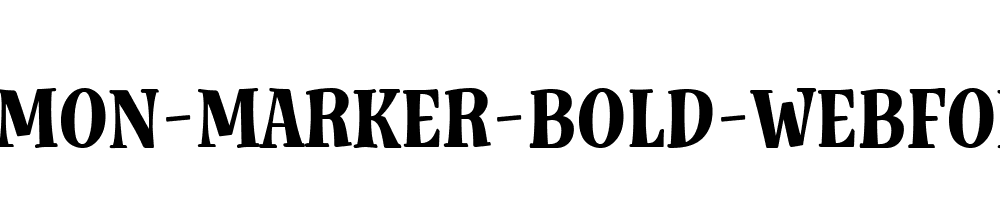
limon-marker-bold-WebFont
About limon-marker-bold-WebFont
Font Weight Name: Limon Marker Bold WebFont, Font Family: Limon Marker, designed by unknown. This font is part of the marker family, licensed with Adobe Fonts, and manufactured by an independent type foundry. The current version is not specified.
The Limon Marker Bold WebFont has a unique and expressive design that stands out for its bold and rugged appearance. The font features thick stems and sharp serifs, giving it a strong and serious look. The aperture of the letters is wide, with open counters adding to its friendly and familiar feel.
The ascenders and descenders of the font are quite pronounced, adding elegance to the overall design. The bowls are round and full, while the brackets and links provide a classic touch. The font also features subtle spurs and finials that add to its organic and progressive style.
The Limon Marker Bold WebFont is a warm and welcoming typeface that balances its ruggedness with a hint of sophistication. The crossbars and joints are well-defined, enhancing the legibility of the font. The hairline strokes contrast nicely with the thick stems, creating a dynamic and eye-catching look.
Overall, the Limon Marker Bold WebFont is a versatile and expressive font that can be used in a variety of design projects. Its unique characteristics make it a great choice for both bold headlines and body text. Whether you’re looking for a font that is classic and elegant or modern and daring, the Limon Marker Bold WebFont has you covered.